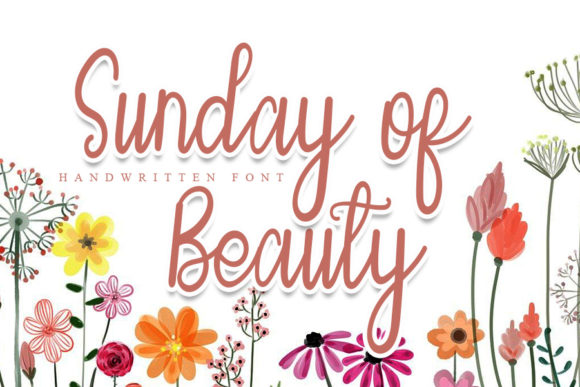
Journey into the realm of elegance and sophistication with Sunday of Beauty, a script font family that exudes charm and grace. This enchanting creation by Inermedia STUDIO captivates the essence of modern calligraphy, transforming your words into works of art.
Immerse yourself in the beauty of Sunday of Beauty's meticulously crafted characters, each meticulously designed to evoke a sense of timeless allure. Its delicate strokes and graceful curves dance across the page, creating a visual symphony that elevates any design project.
With its innate versatility, Sunday of Beauty effortlessly complements a diverse range of creative endeavors. Whether you're composing a heartfelt letter, designing an alluring poster, or crafting a polished resume, this font family seamlessly adapts to your vision.
Discover the transformative power of Sunday of Beauty in your modern resume. Its elegant script adds a touch of sophistication and professionalism, ensuring your qualifications shine through. Stand out from the crowd and make a lasting impression with a resume that reflects your unique personality and unwavering dedication.
Unlock the full potential of your creative projects with Sunday of Beauty. Let its enchanting aesthetics elevate your designs, captivating your audience with its timeless charm. Experience the magic of Sunday of Beauty today and witness the transformation of your creative aspirations into breathtaking realities.